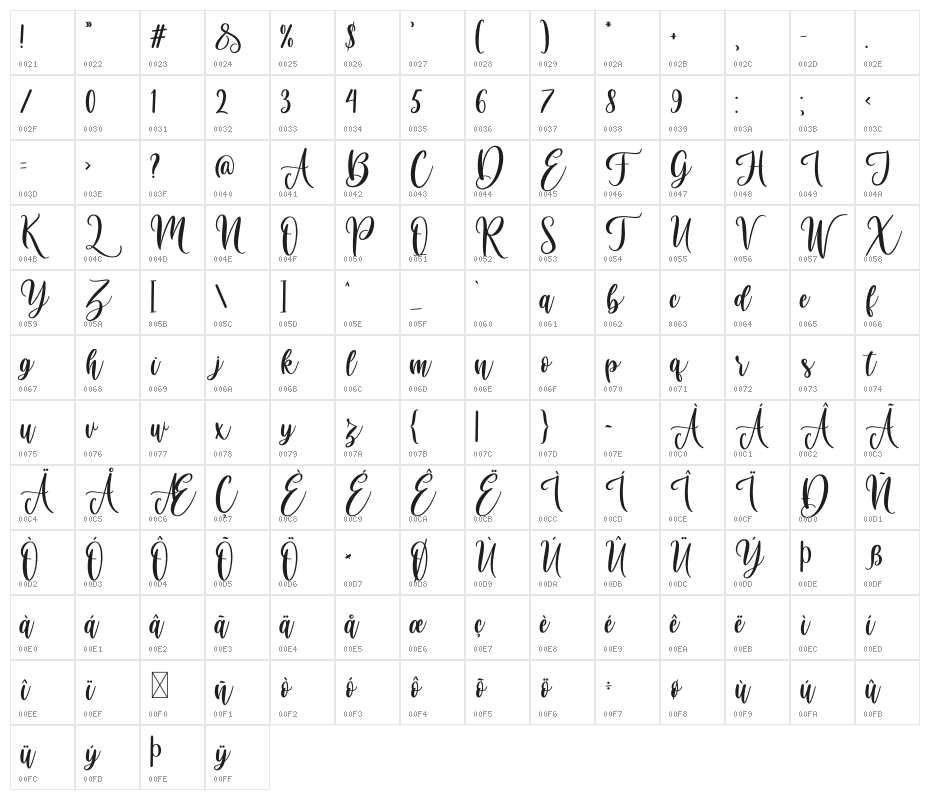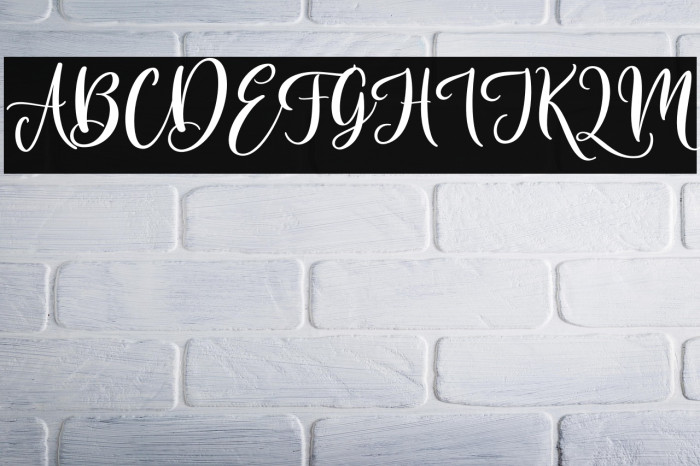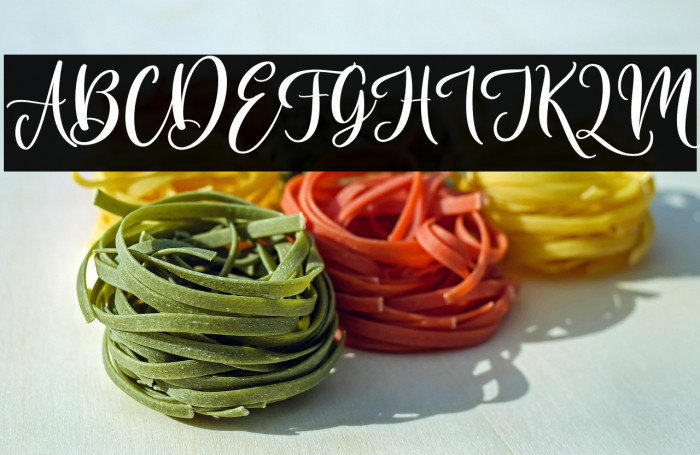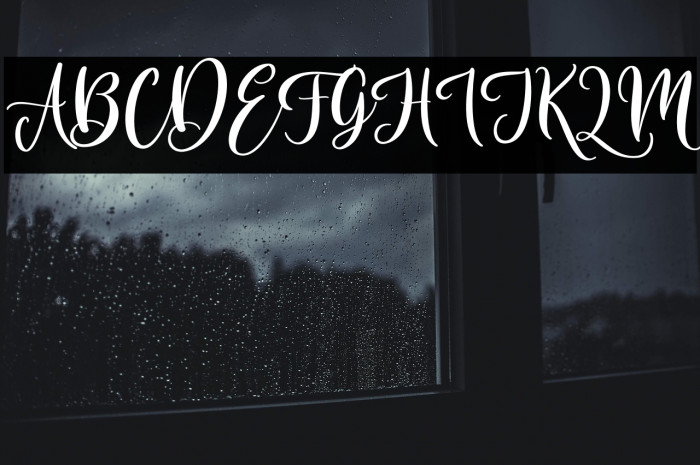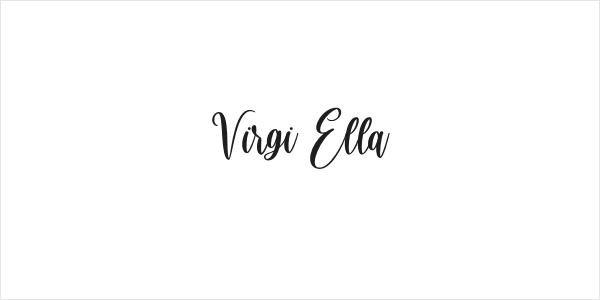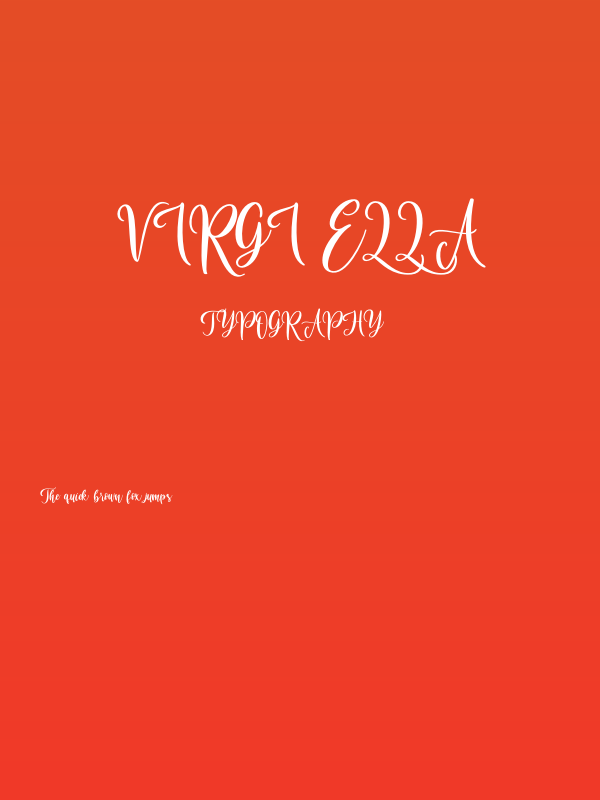
Virgi Ella Font
Virgi Ella Description
This font features a flowing, cursive style with elegant loops and swashes, giving it a sophisticated and artistic appearance. The uppercase letters are bold and expressive, with a consistent slant that adds to the dynamic feel. Lowercase letters maintain the same fluidity, with some characters extending below the baseline, enhancing the script's graceful nature. The numbers and special characters are designed to match the overall aesthetic, ensuring a cohesive look across all text elements. This font is perfect for adding a personal touch to any design, combining readability with a touch of flair.
Use CaseLogos, Invitations, Decorative text
Proposed ProjectsIdeal for wedding invitations, greeting cards, branding, and logo design.